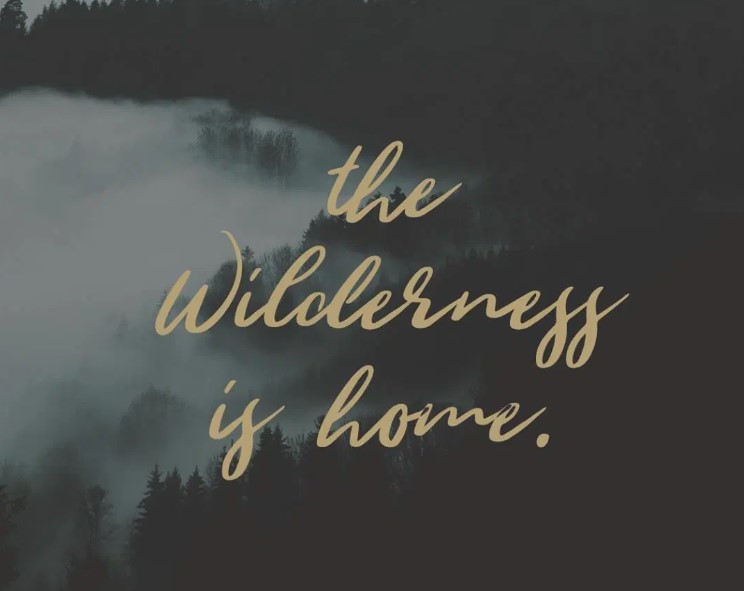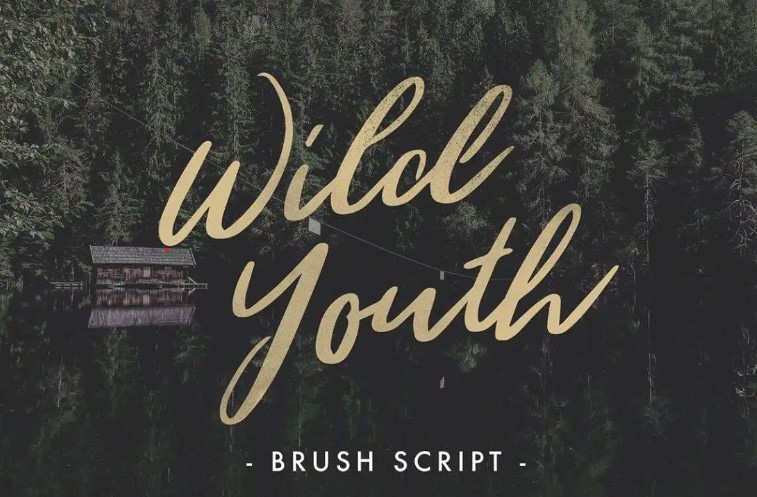
Wild Youth Font
Wild Youth Font is famous for its text generation feature and it come under the category of the handwritten font and also known as the quentin font. The italic typeface that looks like brusher font comes with a big persona set helping most of the European languages, small caps, pictograms, and arrows. Alongside the lines of the one, its a selection of precise government and they’re the use of it in mission one-of-a-kind from their layout. So, that you can furthermore use this coolest typeface on your personal undertakings.
Wild Youth Font Free It simply works surely properly with pretty a great deal any textual content style. It is a font final for playing round with – see what works! The woodlands are a loose date stamp font from hustle offer co. It has a gift-day calligraphy aesthetic that is especially state-of-the-art.
It additionally much like lovely bloom font however it has extraordinary typeface and traits. Download The woodlands were created to give designers a loose alternative on the way to help you accumulate that lettering take delivery of as actual with all of us love. It’s far a model of an extra historic simple. It‚Äôs moreover considered as a san francisco font.